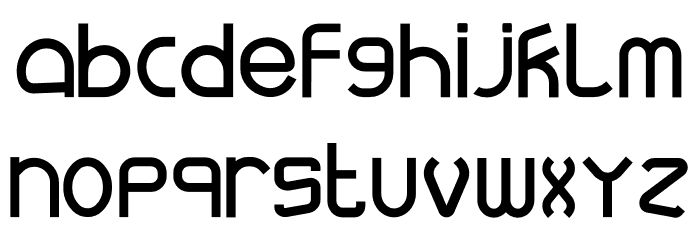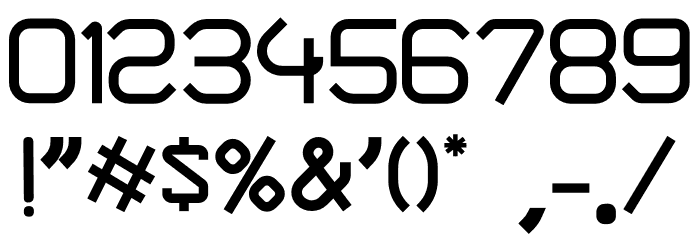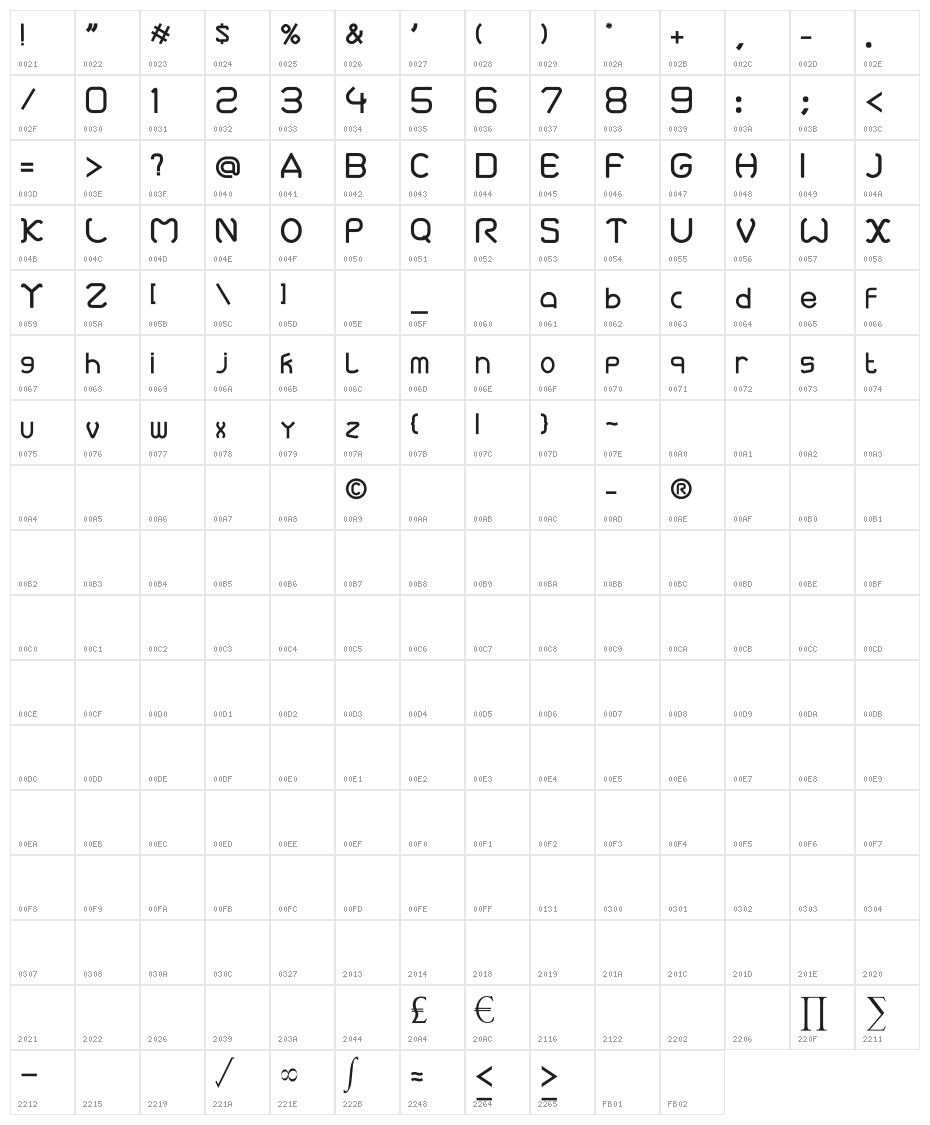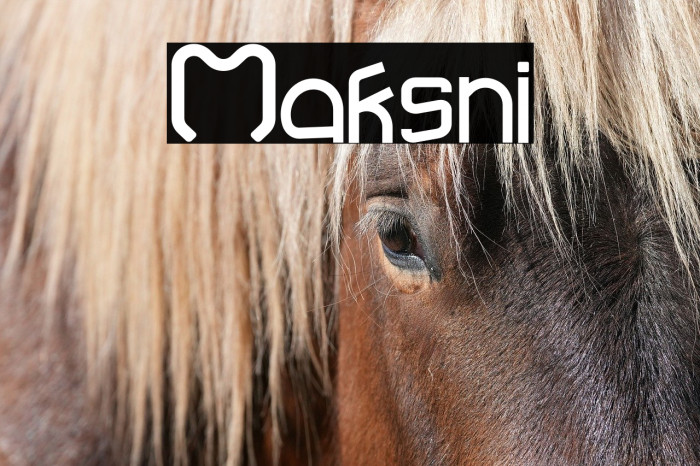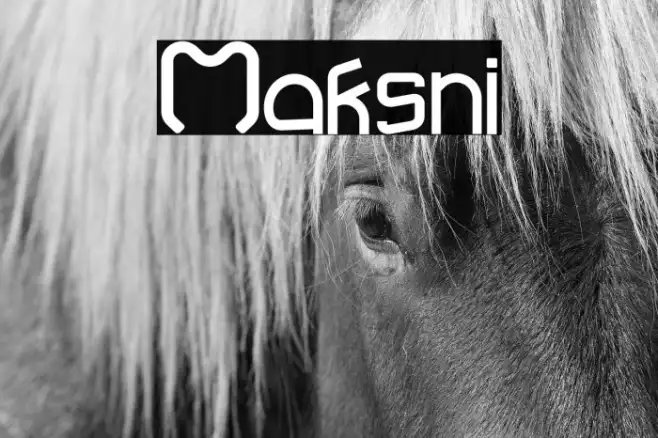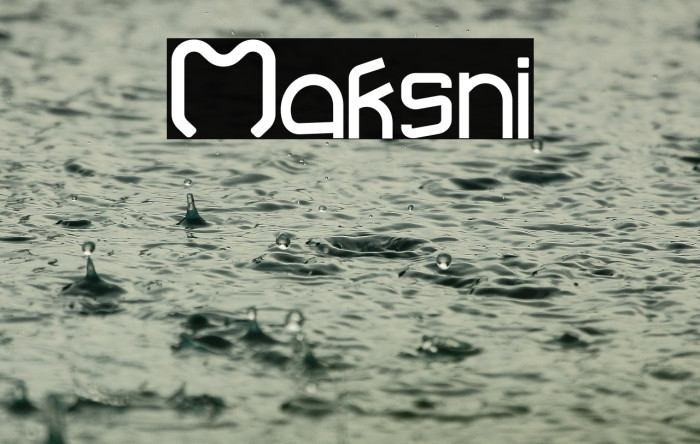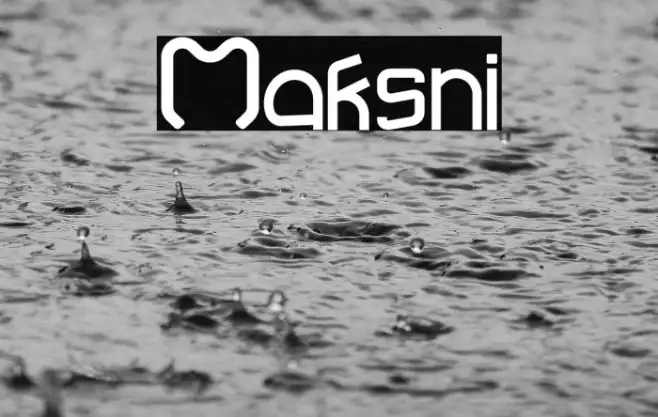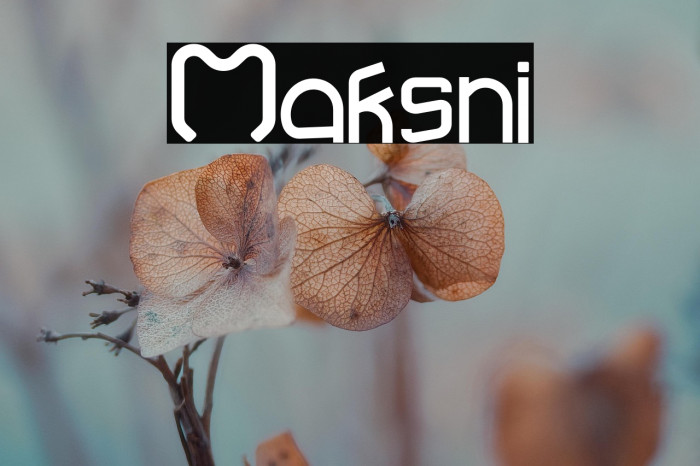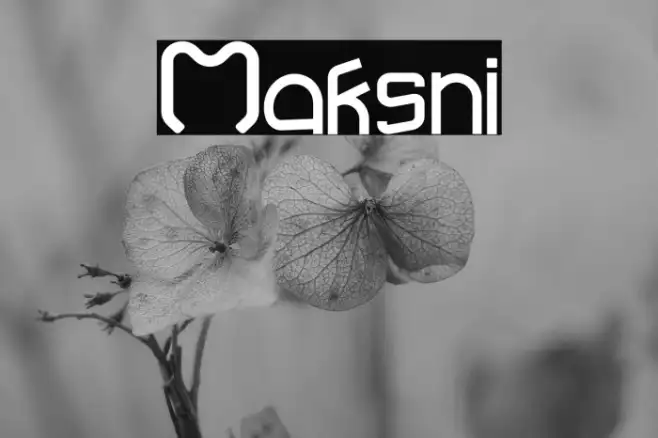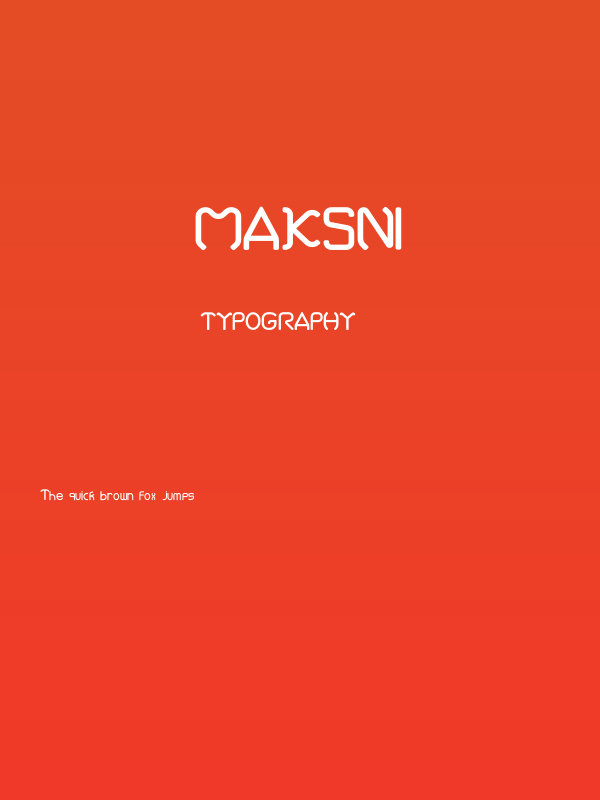
Maksni Font
This font features a unique, futuristic design with geometric shapes and rounded edges. The characters have a consistent stroke width, creating a uniform appearance. The uppercase letters are distinct with angular cuts and curves, while the lowercase letters maintain a similar style but with softer transitions. The numbers are bold and clear, matching the overall aesthetic of the font. Special characters are designed to complement the letters, maintaining the geometric theme. This font is ideal for projects that require a modern and innovative look.
A futuristic, geometric font with consistent stroke width and rounded edges.
- Font: Maksni
- Proposed Projects: Ideal for tech branding, sci-fi posters, modern logos, and digital interfaces.
- Overall Style: Futuristic